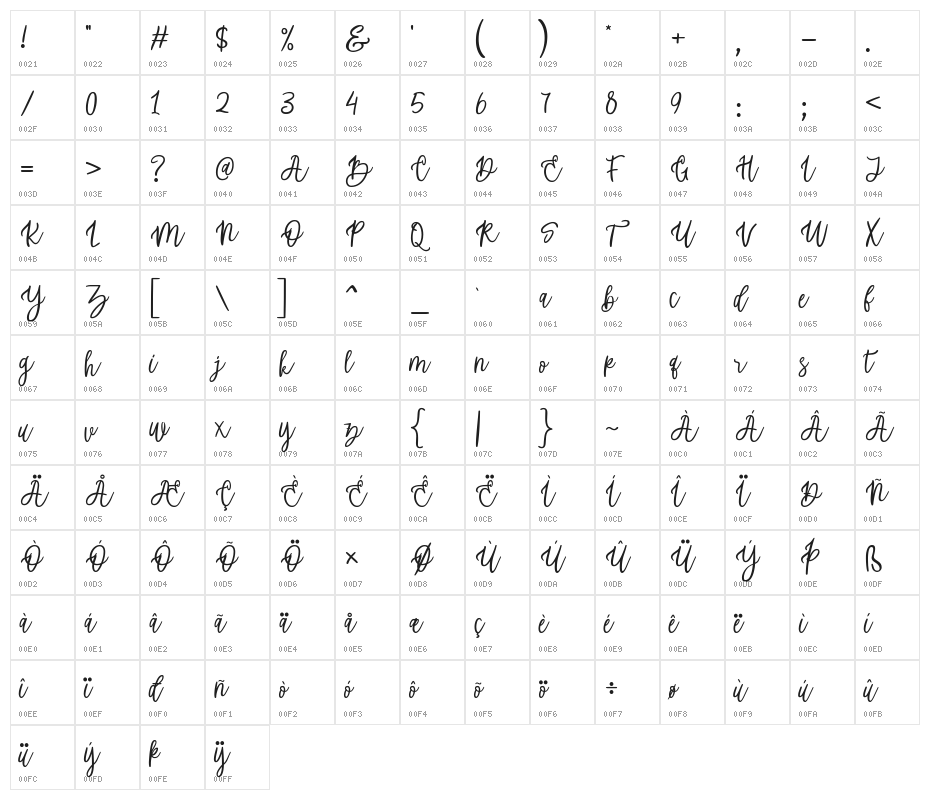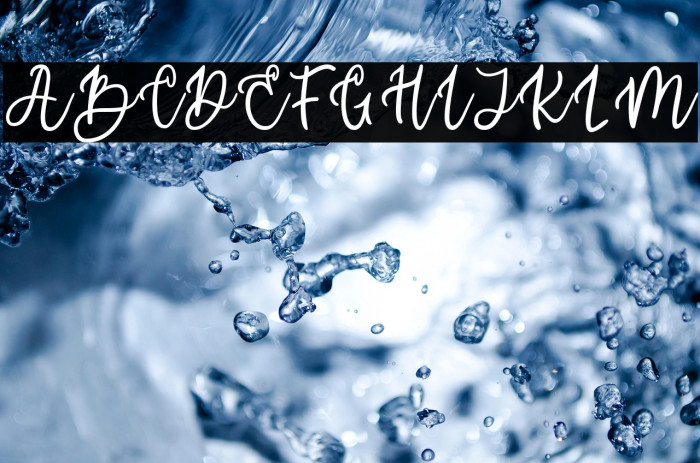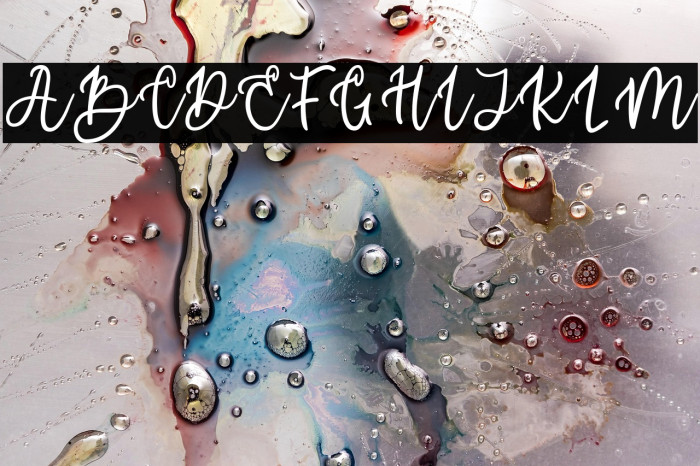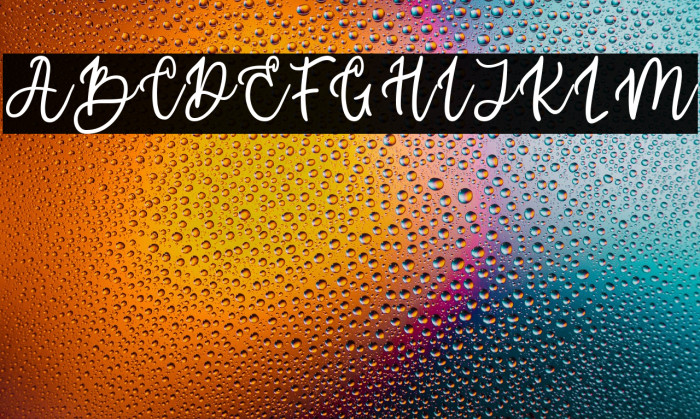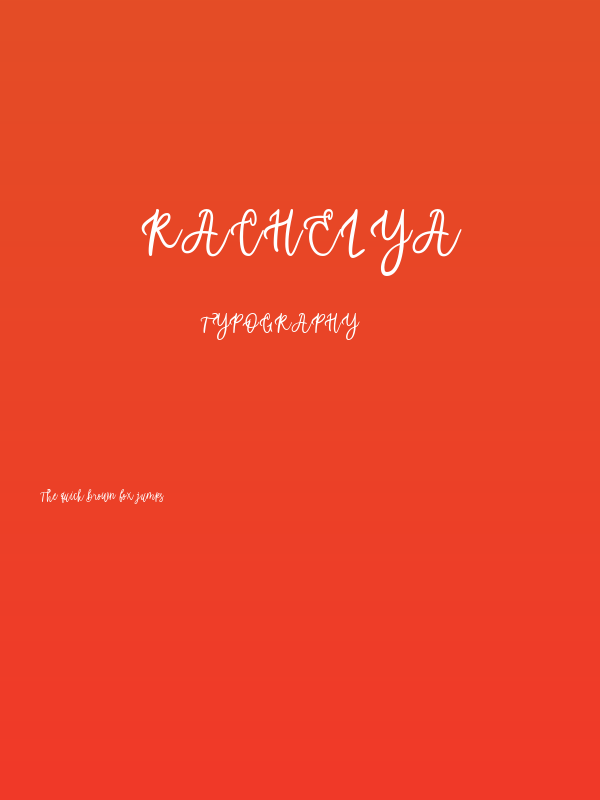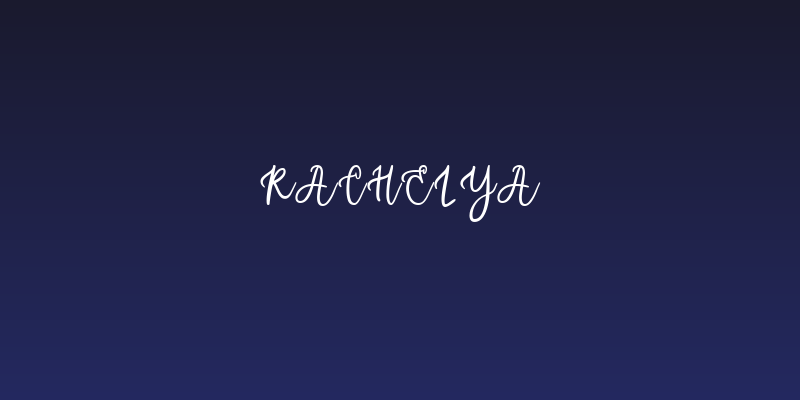
Rachelya Font
Rachelya Description
This font exudes a lively and elegant script style, characterized by its flowing, cursive letterforms. The uppercase letters are bold and dynamic, with sweeping curves and loops that convey a sense of movement and grace. The lowercase letters maintain a consistent rhythm, with smooth connections between characters, enhancing readability while preserving an artistic flair. The numerals are clear and distinct, complementing the overall script style. Special characters are thoughtfully designed, integrating seamlessly with the alphabet. This font is perfect for projects that require a personal touch, such as invitations, greeting cards, or branding materials.
Overall StyleElegant
Use CaseLogos, Invitations, Greeting Cards
Proposed ProjectsIdeal for invitations, greeting cards, branding, and personal projects.